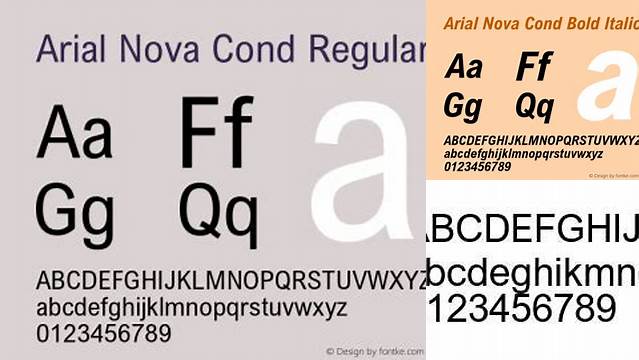
Introduction: The Allure of Arial Nova Cond Font
Hey guys! Ever stumbled upon a font that just clicks? For many designers and typographers, Arial Nova Cond is one of those fonts. It’s sleek, it’s modern, and it’s incredibly versatile. If you're in the market for a font that combines readability with a contemporary edge, then Arial Nova Cond font might just be your new best friend. This comprehensive guide dives deep into what makes Arial Nova Cond so special, where you can find it for free, and how to make the most of it in your projects. So, buckle up and let’s get started!
Arial Nova Cond is not just another font; it’s a statement. The condensed nature of this typeface allows for efficient use of space, making it perfect for headlines, body text, and everything in between. Its clean lines and geometric shapes provide a modern aesthetic that works wonders across various design mediums. Whether you’re crafting a website, designing a brochure, or working on a branding project, Arial Nova Cond can elevate your work with its sophisticated simplicity. The font's design ensures legibility even at smaller sizes, a crucial factor in today's responsive design environment. Its condensed form factor also allows more text to fit into limited spaces without sacrificing clarity. From a designer’s perspective, this means greater flexibility in layout and visual hierarchy. Arial Nova Cond truly shines in situations where space is at a premium but readability cannot be compromised. Think of mobile applications, where screen real estate is limited, or editorial designs where column widths are narrow. Moreover, the font’s versatility extends to various industries and applications. It’s equally at home in corporate communications as it is in creative marketing materials. Its neutral yet modern appearance makes it suitable for everything from annual reports and business cards to websites and advertisements. The appeal of Arial Nova Cond lies in its ability to seamlessly blend into diverse design contexts, adding a touch of contemporary elegance without overpowering the overall aesthetic. In essence, Arial Nova Cond is a tool that enhances communication, making information accessible and visually appealing. This is why designers and typographers often reach for it when they need a reliable and stylish typeface that performs well across different media and applications. It's not just about choosing a font; it's about choosing a font that works for you, making your design process smoother and your final product more impactful.
What Makes Arial Nova Cond Stand Out?
So, what’s the secret sauce? Why do so many people rave about Arial Nova Cond? Well, there are several factors that make this font a standout choice. First off, its legibility is top-notch. The clean, simple letterforms ensure that your text is easily readable, whether it’s in print or on a screen. This is crucial for any font, but especially for one that’s often used in body text and longer passages. Secondly, the condensed design is a game-changer. It allows you to fit more text into a smaller space without sacrificing readability. This makes Arial Nova Cond ideal for headlines, subheadings, and tight layouts where space is at a premium. Plus, it gives a sleek, modern look that can really elevate your design.
Another key aspect of Arial Nova Cond is its versatility. This isn’t a one-trick pony; it’s a font that can adapt to a wide range of design styles and applications. Whether you’re working on a corporate report, a website, or a marketing campaign, Arial Nova Cond fits right in. Its neutral yet contemporary aesthetic makes it a safe bet for almost any project. Think of Arial Nova Cond as the little black dress of fonts – it’s classic, elegant, and always in style. You can dress it up or dress it down, and it always looks good. This adaptability is what makes it such a valuable asset in any designer’s toolkit. The font’s clean lines and balanced proportions contribute to its versatility. It doesn’t have any overly quirky or distinctive features that might limit its usability. Instead, it offers a harmonious blend of form and function, making it suitable for a wide range of applications. This means you can use it for both display and body text, creating a cohesive and professional look throughout your design. Moreover, Arial Nova Cond plays well with other fonts. Its neutrality allows it to pair seamlessly with a variety of different typefaces, from classic serifs to bold sans-serifs. This gives you even more creative freedom in your design work. You can use Arial Nova Cond as the primary font for your project and complement it with a secondary font that adds a touch of personality or contrast. In essence, the versatility of Arial Nova Cond stems from its ability to strike a balance between neutrality and modernity. It’s a font that doesn’t demand attention but quietly enhances the overall aesthetic of your design. This makes it an excellent choice for projects where clarity and professionalism are paramount, but a contemporary touch is also desired. Its adaptability and timeless appeal ensure that it remains a go-to font for designers across various industries and applications. So, if you’re looking for a font that can handle anything you throw at it, Arial Nova Cond is definitely worth considering.
How to Use Arial Nova Cond Effectively
Now that you’ve (hopefully) got your hands on Arial Nova Cond, let’s talk about how to use it effectively. This font is versatile, but like any tool, it works best when used in the right way. One of the best uses for Arial Nova Cond is in headlines and subheadings. Its condensed nature allows you to create impactful headings that grab attention without taking up too much space. Use it in larger sizes to make a statement, and pair it with a complementary body font for a balanced look. Think of it as the assertive voice in your design, confidently announcing the key messages and guiding the reader through the content. Arial Nova Cond’s clean and modern appearance lends itself well to creating a strong visual hierarchy, making it easier for viewers to scan and understand the information presented. When using it for headlines, consider the overall tone and style of your design. Arial Nova Cond can convey a sense of sophistication and efficiency, making it a suitable choice for corporate communications, technology-related content, and modern branding. However, it’s equally adaptable to creative projects, where its sleekness can add a touch of elegance and contemporary flair. Experiment with different weights and styles within the Arial Nova Cond family to create visual interest and emphasis. Use bold or heavy weights for main headlines to make them stand out, and lighter weights for subheadings or secondary text elements. This variation in weight can help guide the reader’s eye and create a more dynamic layout. Furthermore, consider the spacing and alignment of your headlines. Proper kerning and leading can enhance the readability and impact of the text. Ensure that the headlines are appropriately aligned with the surrounding content to create a cohesive and visually appealing design. In essence, Arial Nova Cond shines as a headline font due to its ability to command attention without overpowering the overall design. Its condensed form factor allows for creative use of space, and its clean lines contribute to a modern and professional look. By using it strategically in headlines and subheadings, you can create a strong visual hierarchy and effectively communicate your message.
It also works great for body text, especially in layouts where space is limited. The key here is to ensure readability. Use a comfortable font size and line height, and avoid using overly bold or italicized styles for large blocks of text. Arial Nova Cond's legibility makes it a reliable choice for conveying information clearly and efficiently, whether it's in a printed document or on a digital screen. When using it for body text, pay attention to the contrast between the text color and the background. Sufficient contrast is essential for readability, particularly for individuals with visual impairments. Opt for dark text on a light background or vice versa to ensure that the text is easily distinguishable. Also, consider the line length of your body text. Long lines can be tiring to read, so aim for a comfortable line length that allows the reader to follow the text without strain. Break up large blocks of text with headings, subheadings, and bullet points to improve readability and visual appeal. The font's neutral yet modern aesthetic makes it suitable for a wide range of content types, from formal reports and articles to website copy and marketing materials. Its clean letterforms and balanced proportions contribute to a professional and approachable look, making it an excellent choice for conveying information to a broad audience. In addition to readability, consider the overall tone and style of your body text. Arial Nova Cond's versatility allows it to adapt to various design contexts, but it's important to ensure that the font aligns with the intended message and brand identity. For instance, in a corporate setting, Arial Nova Cond can convey a sense of competence and reliability, while in a creative context, it can add a touch of contemporary elegance. Ultimately, using Arial Nova Cond effectively in body text is about striking a balance between legibility and aesthetic appeal. By paying attention to factors such as font size, line height, contrast, and line length, you can create body text that is both easy to read and visually engaging, enhancing the overall communication of your message. So, when you’re using it in body text, remember to prioritize readability above all else. Your goal is to make the content as accessible and enjoyable as possible for your audience. This is especially true in the digital realm, where users often scan text rather than reading it word-for-word.
Finally, don’t be afraid to experiment with different weights and styles. Arial Nova Cond comes in a variety of weights, from light to bold, so you can create visual interest and emphasis within your design. Use different weights to highlight key words or phrases, or to differentiate between headings and body text. Just remember to use these variations sparingly, as too many different styles can make your design look cluttered and confusing. Think of it as adding seasoning to a dish – a little can enhance the flavor, but too much can ruin it. The different weights and styles within the Arial Nova Cond family provide a valuable tool for creating visual hierarchy and adding depth to your designs. By strategically using these variations, you can guide the reader's eye, emphasize important information, and create a more dynamic and engaging layout. When experimenting with different weights, consider the overall balance and consistency of your design. Ensure that the variations in weight serve a clear purpose and contribute to the overall visual harmony. For instance, use bold weights for main headings and lighter weights for subheadings or captions to create a clear hierarchy of information. In addition to weight, explore other styles such as italics or condensed variations to add further visual interest. However, use these styles judiciously, as overuse can detract from readability and create a cluttered appearance. Italics, for example, are best used sparingly for emphasis or to distinguish certain words or phrases, while condensed styles can be effective for headlines or tight spaces where space is limited. When combining different weights and styles, consider the font pairings and overall typographic palette of your design. Ensure that the chosen variations complement each other and contribute to a cohesive and visually appealing look. A well-balanced typographic palette can elevate your design and enhance the overall message you're trying to convey. In essence, experimenting with different weights and styles of Arial Nova Cond is a powerful way to add visual interest and emphasis to your designs. By using these variations strategically, you can create a more dynamic and engaging layout that effectively communicates your message and enhances the overall aesthetic of your project. So, don't be afraid to explore the full range of possibilities within the Arial Nova Cond family and discover how you can use its different weights and styles to create stunning designs.
In summary, Arial Nova Cond stands as a testament to the power of thoughtful typography in design. Its strengths lie not only in its visual appeal but also in its functional attributes, making it a reliable choice for designers seeking a typeface that performs well across various media and applications. The font’s condensed form factor, combined with its clean lines and balanced proportions, allows for efficient use of space without compromising readability. This is particularly valuable in today’s design landscape, where layouts often need to accommodate a large amount of information within limited areas. From headlines and subheadings to body text and captions, Arial Nova Cond adapts seamlessly to different roles within a design, maintaining a consistent level of legibility and visual coherence. Its versatility extends to various industries and contexts, making it a go-to choice for corporate communications, marketing materials, websites, and more. Whether you’re aiming for a sleek and modern aesthetic or a more classic and understated look, Arial Nova Cond can help you achieve your desired design goals. However, like any design tool, Arial Nova Cond is most effective when used thoughtfully and strategically. Experimenting with different weights, styles, and pairings can unlock its full potential and help you create visually compelling and impactful designs. Pay attention to details such as kerning, leading, and contrast to ensure that the font performs optimally in different contexts. And don’t be afraid to explore alternative fonts or typographic approaches to find the perfect solution for your project. Ultimately, the choice of typeface is a crucial element of any design, and Arial Nova Cond offers a compelling blend of style and functionality that makes it a valuable asset in any designer’s toolkit. So, embrace its versatility, explore its nuances, and let it elevate your design work to new heights. Its timeless appeal and adaptability ensure that it will remain a staple in the design world for years to come.